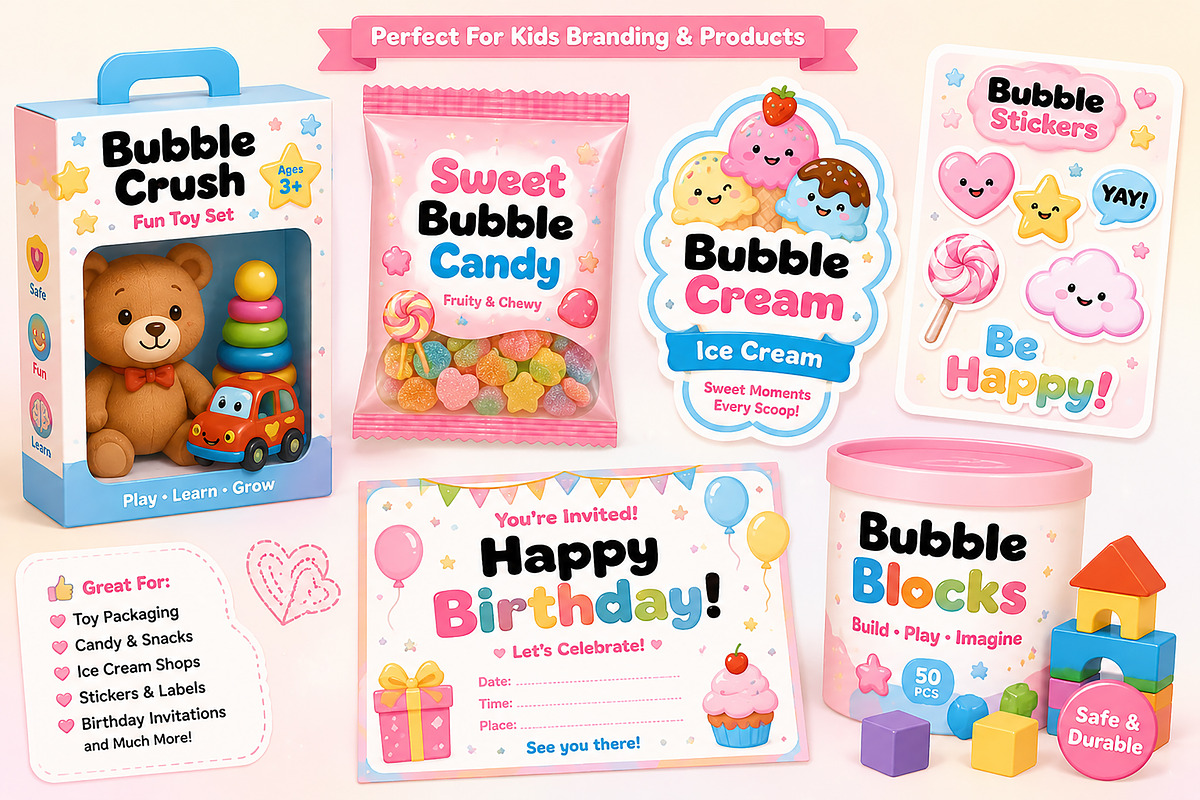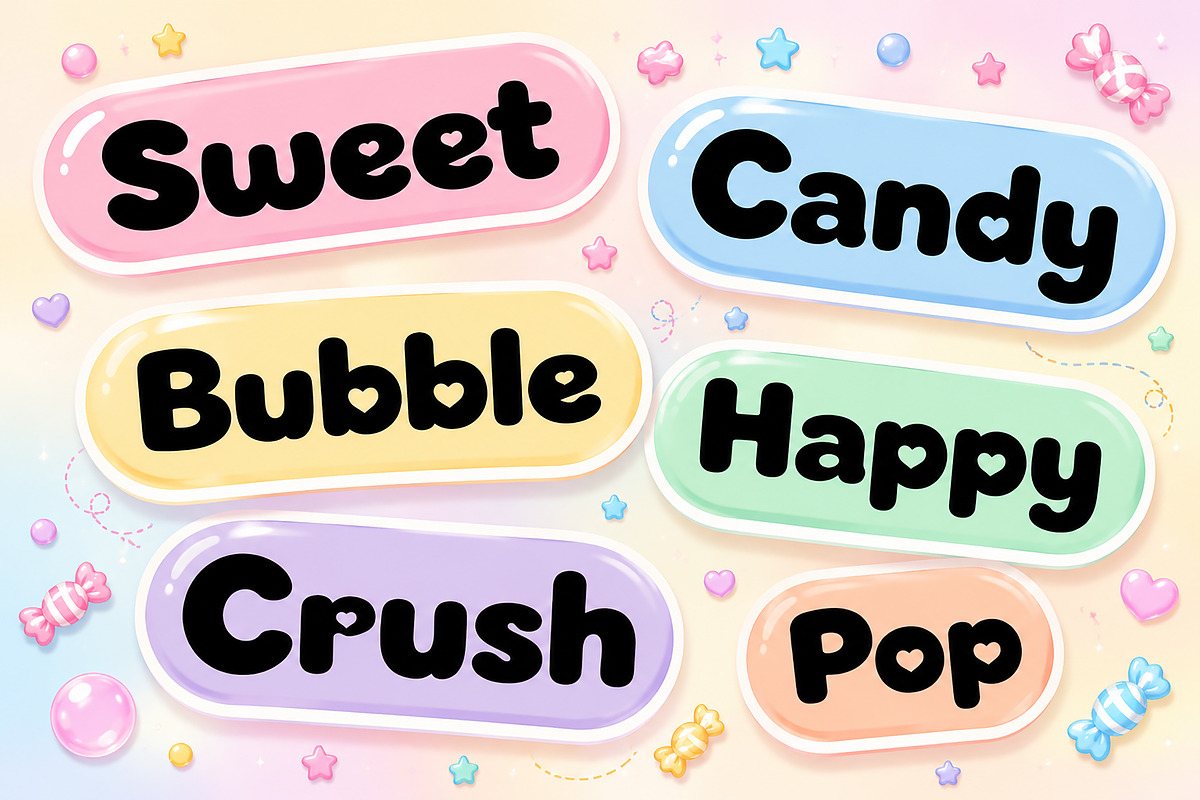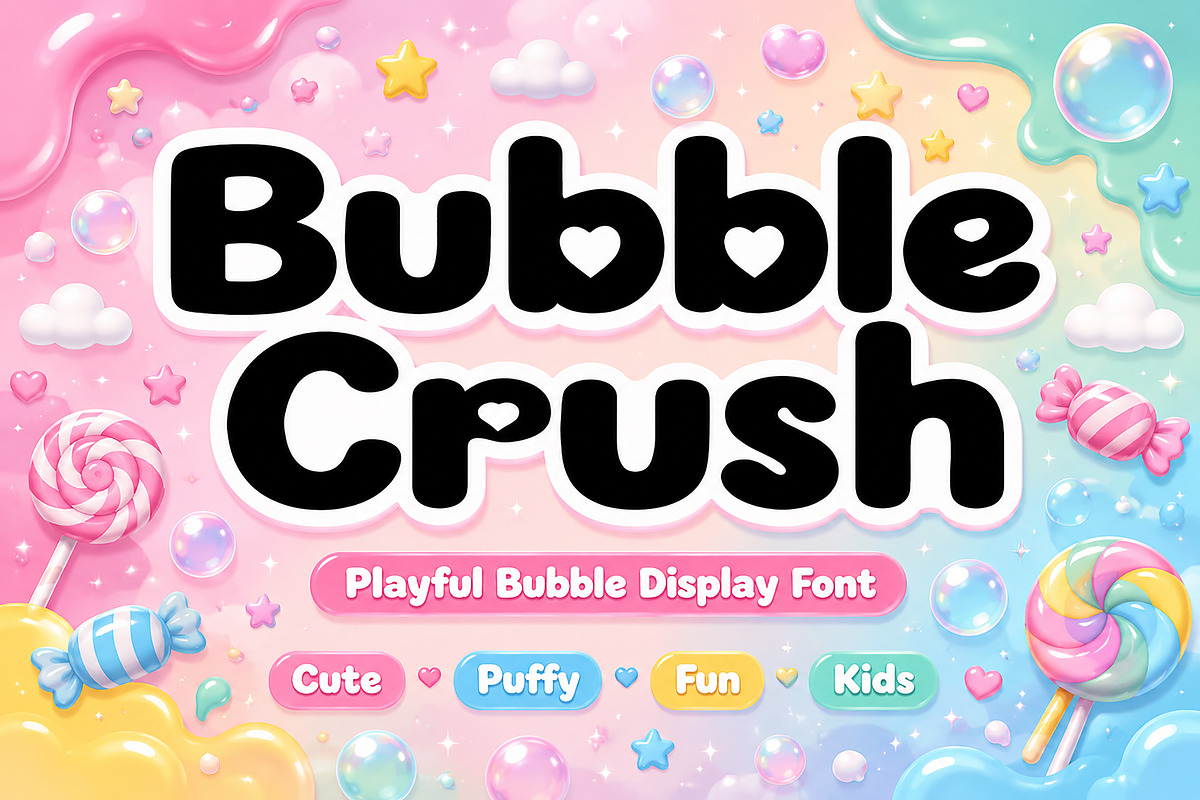
Bubble Crush
Bubble Crush is a playful bubble display font designed to bring joy, sweetness, and charm into your creative projects. With its chunky rounded letterforms, soft curves, and adorable heart-shaped details, this font is perfect for kids branding, candy packaging, playful logos, birthday invitations, stickers, social media posts, and fun merchandise.
Its bold bubbly style creates a cheerful and eye-catching look that instantly feels cute, friendly, and energetic. Whether you’re designing for children’s products, sweet-themed branding, or colorful digital content, Bubble Crush adds a delightful personality to every design.
• Kids Branding
• Candy Packaging
• Birthday Invitations
• Toy Logos
• Cute Stickers
• T-shirt Designs
• Social Media Quotes
• Baby Shower Cards
• School Projects
• YouTube Thumbnails
• Posters & Packaging
Make your designs sweeter, softer, and more lovable with Bubble Crush!